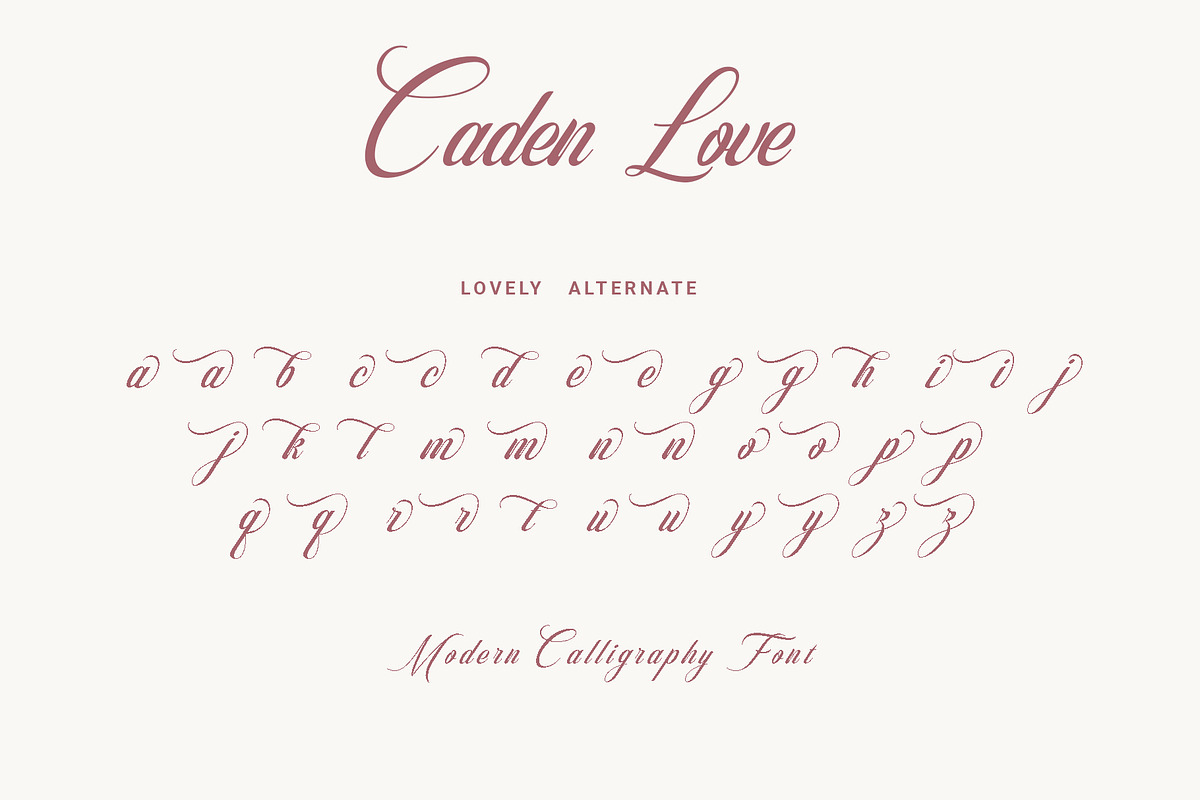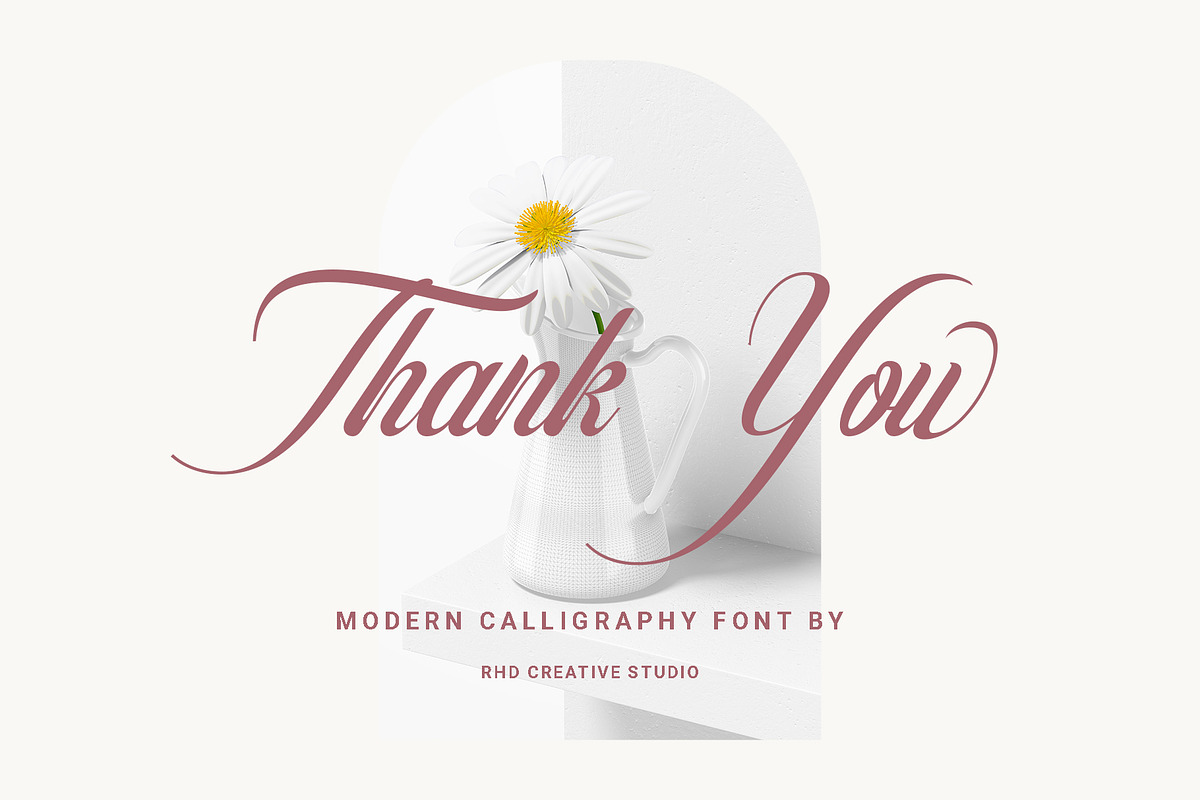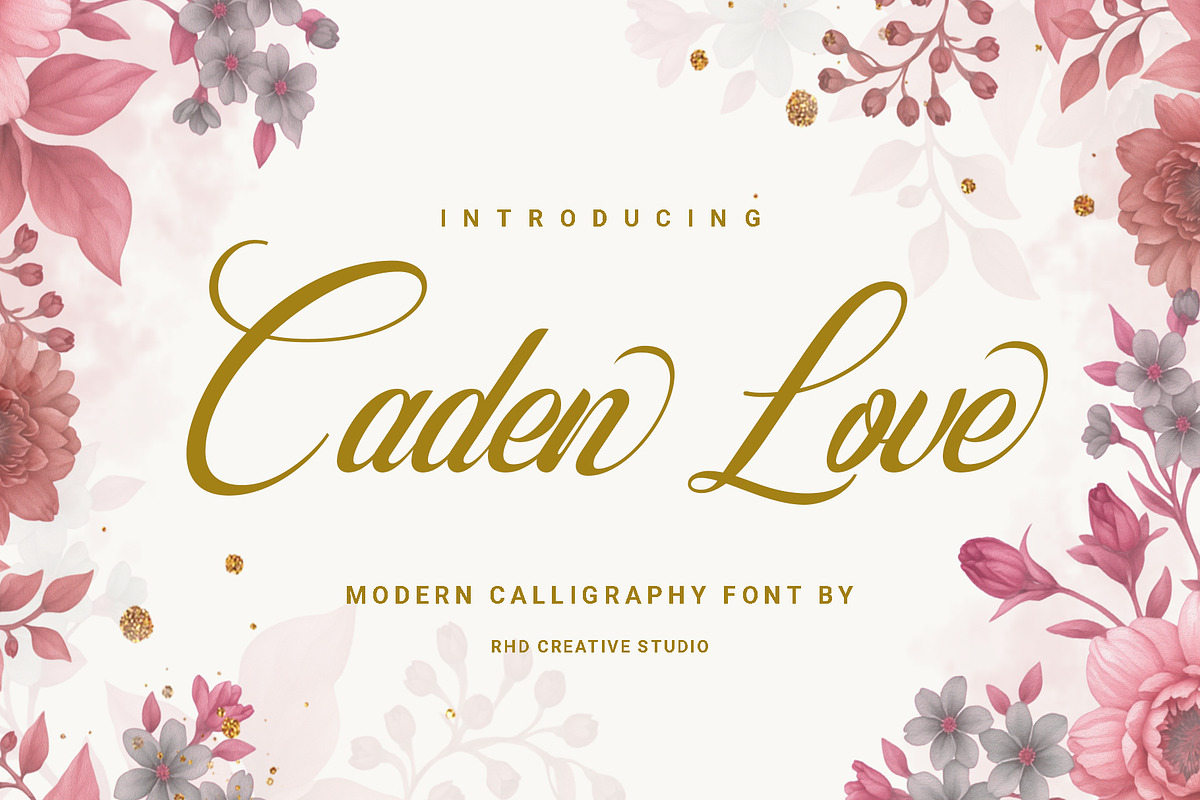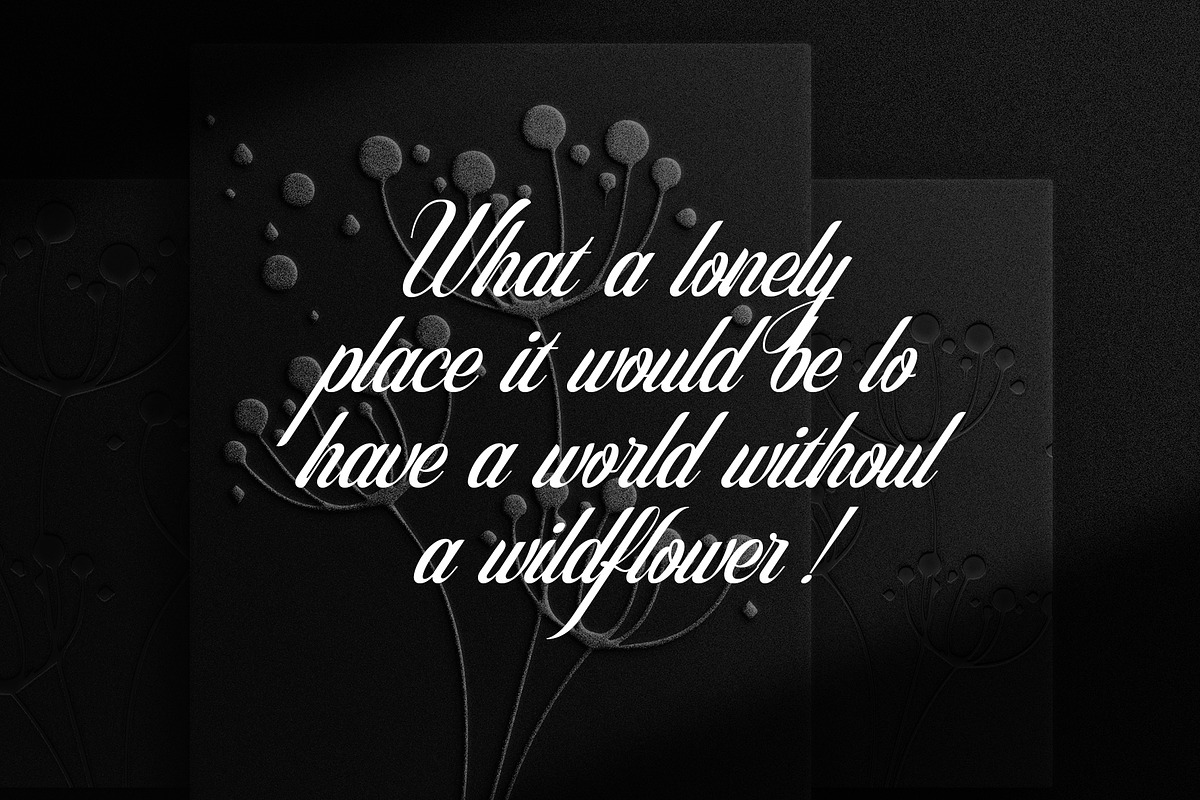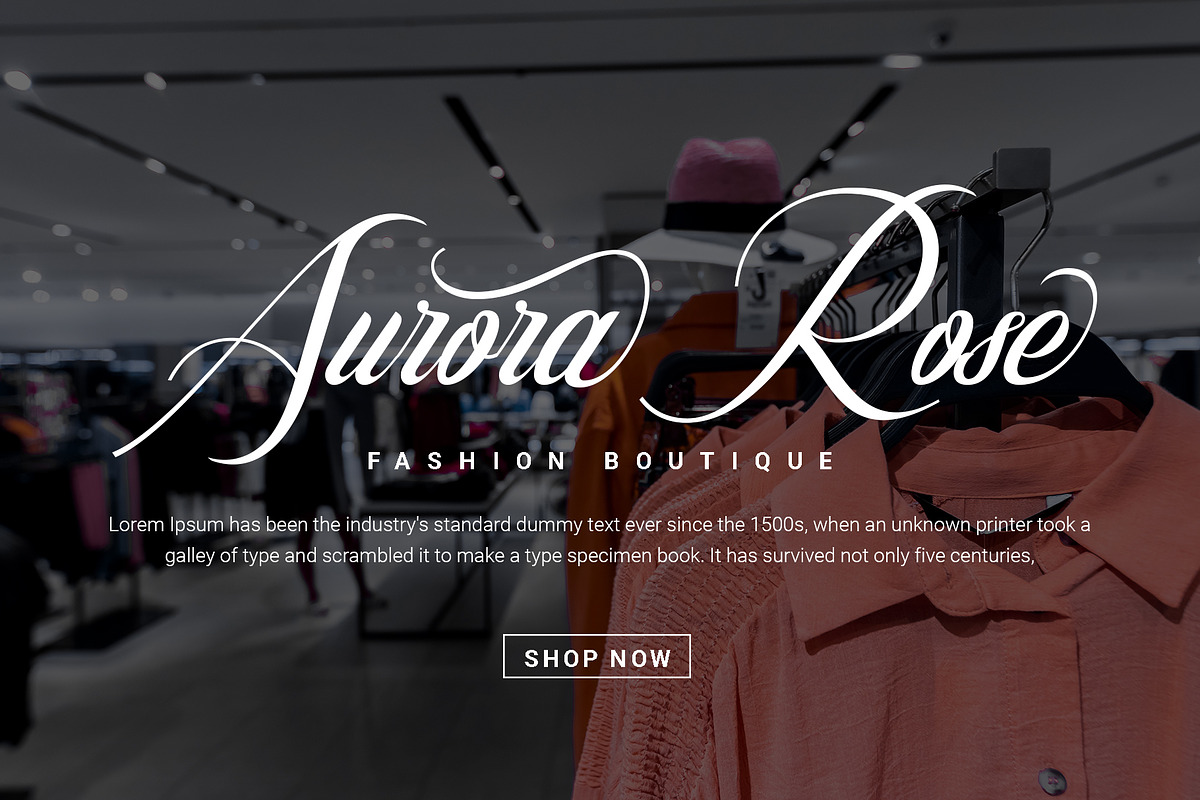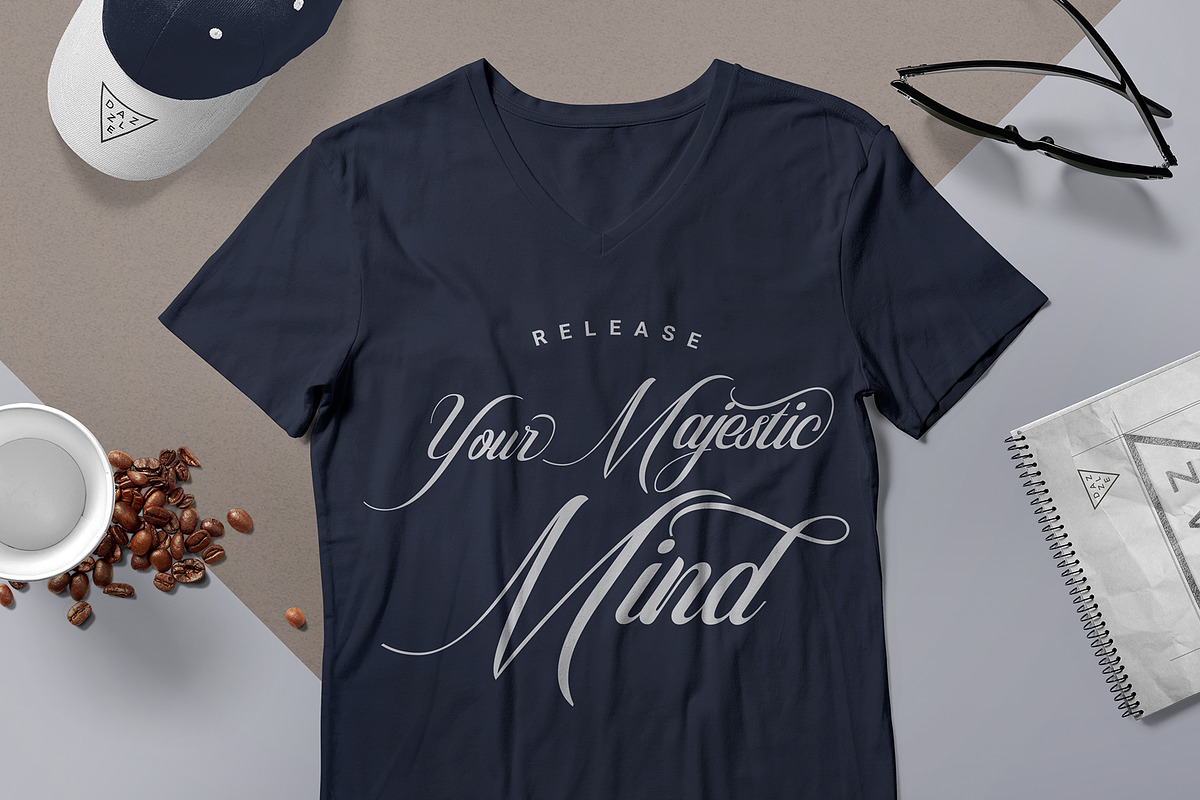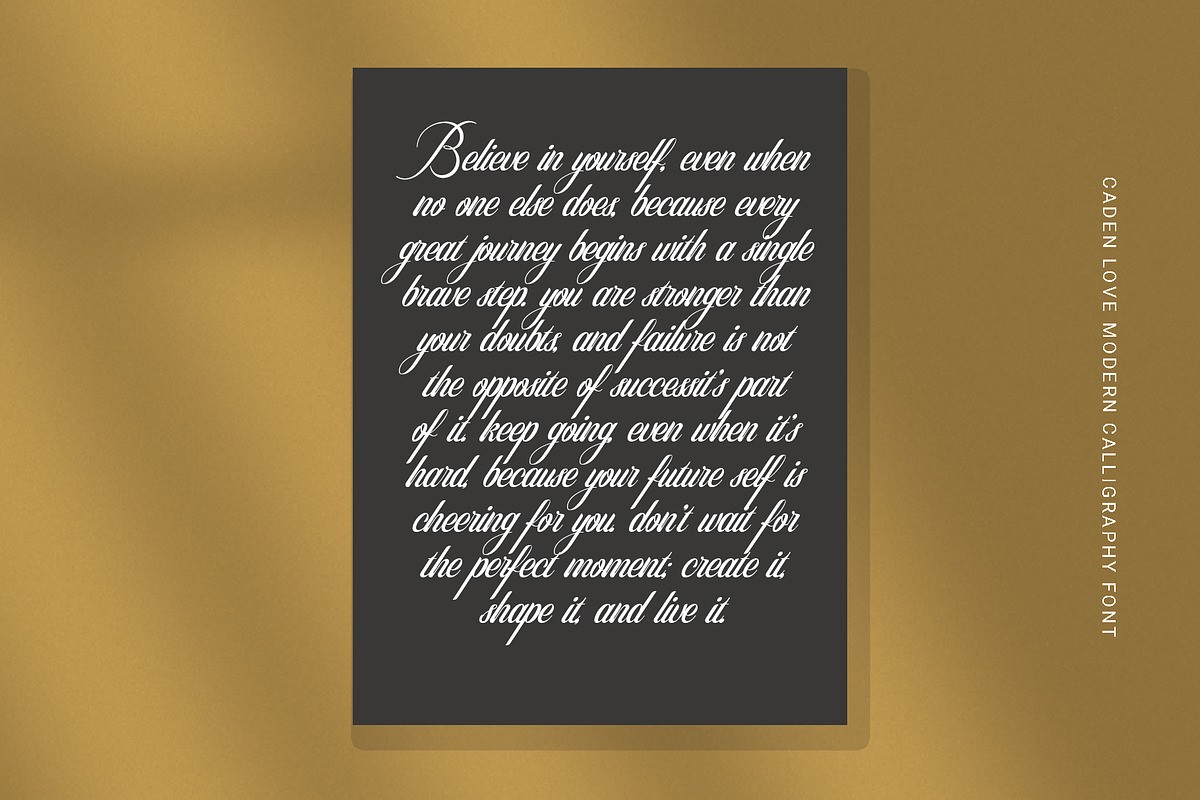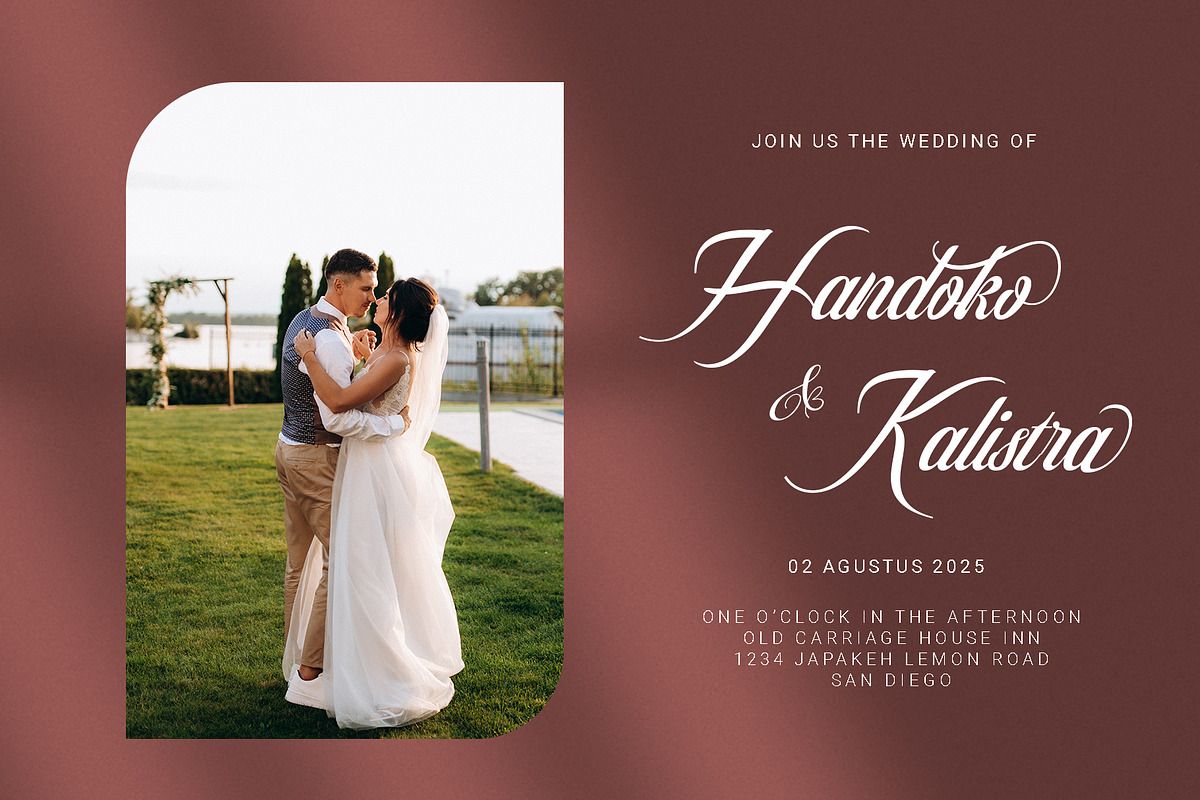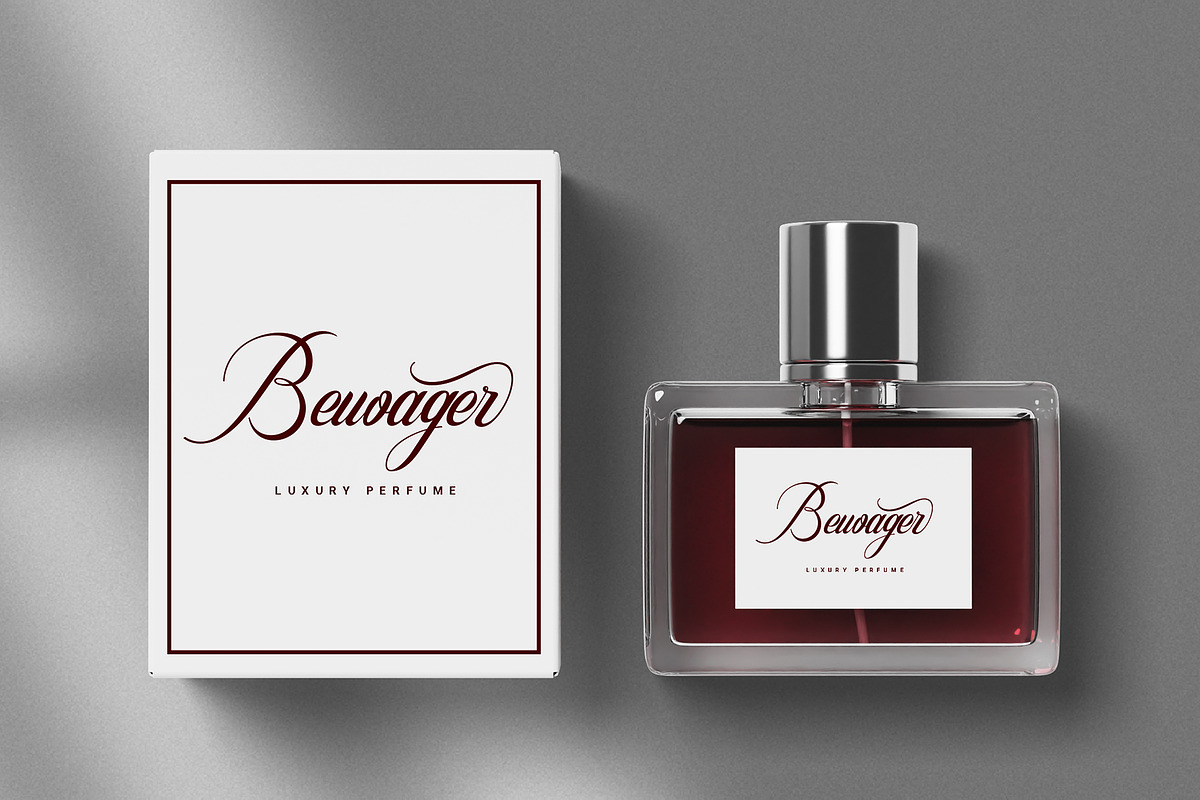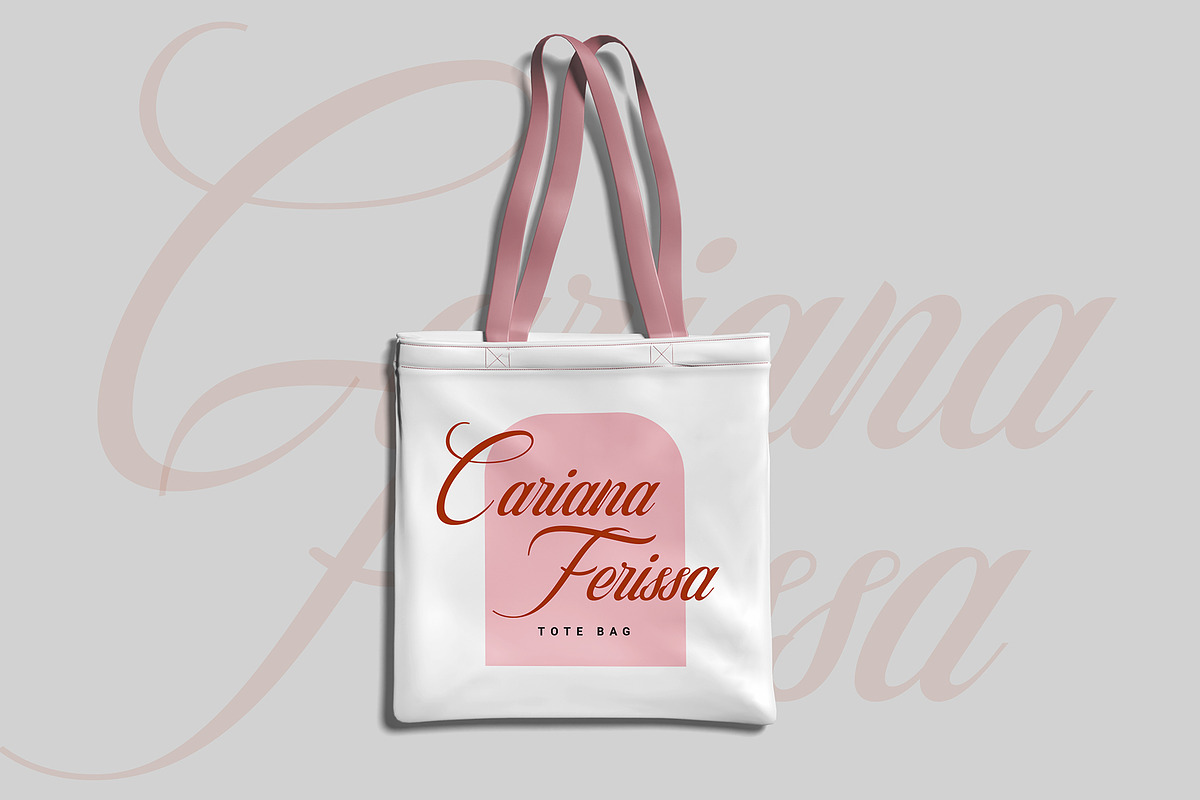
Caden Love Modern Calligraphy
Hello everyone, I would like to introduce Caden Love Modern Calligraphy.
Caden Love Modern Calligraphy with Handmade character. Caden Love Modern Calligraphy , Modern font to make your design project stand out! Caden Love Modern Calligraphy a perfectly choice for any creative endeavor, creating, modern, chic, lifestyle design such as logotype, title, cover, branding, invitations, wedding designs, display and magazine, social media posts, advertisements, printed quotes, product packaging, corporate brand, product designs, labels, photography, watermarks, special events and any other project with modern touch.